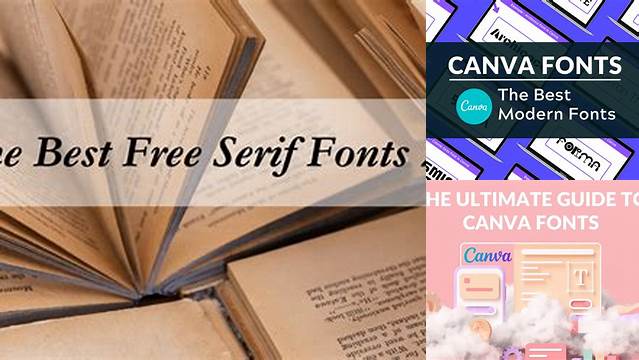
Free Fonts: How Thumbnails Help You Choose Wisely
Introduction to Free Fonts and Thumbnails
Hey guys! Let's dive into the world of free fonts and their amazing thumbnails. In today's digital landscape, fonts play a crucial role in visual communication. Whether you're designing a website, creating marketing materials, or working on a personal project, the right font can make all the difference. Free fonts offer an accessible way to enhance your designs without breaking the bank. But how do you choose the perfect font from the vast sea of options? That's where thumbnails come in handy. A font thumbnail is a small preview image that showcases the font's style and characteristics. It gives you a quick glimpse of what the font looks like, helping you decide whether it's the right fit for your project. Think of it as a mini-advertisement for the font, designed to catch your eye and pique your interest. A well-designed thumbnail will highlight the font's unique features, such as its weight, style, and overall aesthetic. This allows designers and creatives to efficiently browse and select fonts that align with their vision. Imagine scrolling through a list of hundreds of fonts without any thumbnails – it would be a daunting task! Thumbnails make the process much more manageable, enabling you to quickly identify fonts that resonate with your project's needs. Moreover, thumbnails often include sample text or glyphs that demonstrate the font's legibility and character set. This is particularly important for fonts that will be used in body text or headlines, where readability is paramount. By examining the thumbnail, you can assess whether the font is clear and easy to read, even at smaller sizes. In addition to their practical function, thumbnails also serve an aesthetic purpose. They contribute to the overall visual appeal of font libraries and marketplaces. A collection of well-designed thumbnails creates a cohesive and inviting browsing experience, encouraging users to explore different font options. So, whether you're a seasoned designer or just starting out, understanding the importance of free fonts and their thumbnails is crucial for creating visually stunning projects. Let's explore further how you can make the most of these resources.
Why Thumbnails are Essential for Font Selection
Thumbnails, guys, are super important when you're picking out fonts. They're not just there to look pretty; they're a vital tool in the font selection process. Think about it – you wouldn't buy a book without looking at the cover, right? Font thumbnails work in much the same way. They give you a sneak peek of what the font has to offer, allowing you to make informed decisions quickly and efficiently. The key benefit of using thumbnails is the ability to assess a font's style at a glance. Instead of having to download and test each font individually, you can scroll through a series of thumbnails and instantly identify fonts that match your aesthetic preferences. This is a huge time-saver, especially when you're working on a tight deadline. For example, if you're looking for a bold, modern font for a website header, you can easily spot thumbnails that feature thick strokes and clean lines. Conversely, if you need an elegant, script font for an invitation, you can focus on thumbnails with flowing curves and decorative flourishes. Thumbnails also help you understand the font's character set and legibility. A good thumbnail will showcase various letters and glyphs, giving you an idea of how the font looks in different contexts. You can check if the font includes special characters, ligatures, or alternative glyphs that might be useful for your project. Additionally, the thumbnail can demonstrate how well the font reads at different sizes. This is crucial for ensuring that your text remains legible, whether it's displayed on a large poster or a small mobile screen. Another reason why thumbnails are essential is that they provide context. Many font designers create families of fonts that include different weights, styles, and variations. The thumbnail can indicate whether the font is part of a larger family, allowing you to choose a consistent look and feel across your project. For instance, a thumbnail might show a font in regular, bold, and italic styles, giving you a comprehensive overview of the font's capabilities. Furthermore, thumbnails play a significant role in the overall user experience of font libraries and marketplaces. A well-organized and visually appealing collection of thumbnails makes it easier and more enjoyable to browse fonts. This encourages users to explore different options and discover new fonts that they might not have considered otherwise. In short, guys, thumbnails are the unsung heroes of font selection. They provide a quick, visual way to assess fonts, saving you time and helping you make better design choices. So, next time you're browsing for fonts, pay close attention to the thumbnails – they're your best friend in the font-finding process!
How to Create Effective Font Thumbnails
Creating effective font thumbnails is crucial for showcasing your fonts and attracting potential users. A well-designed thumbnail can make a font stand out from the crowd and entice designers to explore it further. So, how do you create thumbnails that truly capture the essence of your font? First and foremost, guys, focus on highlighting the font's unique characteristics. What makes your font special? Is it the elegant curves of a script font, the bold lines of a sans-serif, or the quirky details of a display font? Your thumbnail should immediately communicate these qualities. Use sample text that showcases the font's personality. Instead of simply displaying the alphabet, choose words or phrases that reflect the font's style. For example, if you're creating a thumbnail for a vintage-inspired font, you might use words like "classic," "retro," or "vintage" itself. This helps viewers understand the font's intended use and target audience. Pay attention to the composition of your thumbnail. The layout should be clean and balanced, with the font taking center stage. Avoid cluttering the thumbnail with too many elements or distracting backgrounds. A simple background, such as a solid color or a subtle texture, will help the font stand out. Consider using a contrasting color to make the text pop. Think about the size and resolution of your thumbnail. Most font marketplaces have specific requirements for thumbnail dimensions, so make sure to adhere to these guidelines. A thumbnail that's too small may appear blurry or pixelated, while one that's too large may take up too much space on the page. Aim for a resolution that's clear and crisp, even when viewed at smaller sizes. Experiment with different styles and layouts. There's no one-size-fits-all approach to creating font thumbnails. Some designers prefer to showcase the entire font family, while others focus on a single weight or style. You might also try incorporating visual elements that complement the font, such as icons, illustrations, or background patterns. The key is to find a style that represents your font accurately and appeals to your target audience. Another important aspect is consistency. If you're creating a series of thumbnails for multiple fonts, try to maintain a consistent look and feel across all of them. This will create a cohesive visual identity for your fonts and make them easier to recognize. Use the same color palette, layout, and style for each thumbnail to establish a strong brand presence. Finally, guys, test your thumbnails. Get feedback from other designers or potential users to see how they respond to your thumbnails. Do they find them visually appealing? Do they accurately represent the font's style and characteristics? Use this feedback to refine your thumbnails and make them even more effective. Creating compelling font thumbnails is an art form in itself. By focusing on the font's unique qualities, paying attention to composition and style, and maintaining consistency, you can create thumbnails that attract attention and drive sales.
Free Font Resources with High-Quality Thumbnails
Finding free fonts can be a treasure hunt, but finding free fonts with high-quality thumbnails? That's like hitting the jackpot, guys! High-quality thumbnails make the font-selection process a breeze, allowing you to quickly assess whether a font aligns with your design needs. Let's explore some fantastic resources where you can discover free fonts accompanied by top-notch thumbnails. One of the most popular destinations for free fonts is Google Fonts. Google Fonts offers a vast library of open-source fonts, all of which come with beautifully designed thumbnails. The thumbnails on Google Fonts are clear, concise, and showcase the font's key characteristics. You can easily browse fonts by category, style, or popularity, and the thumbnails provide a quick visual overview of each font's aesthetic. Another excellent resource is Font Squirrel. Font Squirrel is known for its curated collection of free fonts, all of which are commercially licensed and ready for use in your projects. The thumbnails on Font Squirrel are thoughtfully designed, often featuring sample text that highlights the font's personality and legibility. Font Squirrel also provides detailed information about each font's licensing terms, making it a reliable source for free fonts. DaFont is a long-standing favorite among designers, offering a massive collection of free fonts in various styles and categories. While the quality of fonts on DaFont can vary, many fonts come with well-designed thumbnails that accurately represent their style. It's worth browsing DaFont's extensive library to discover hidden gems, but always double-check the font's licensing terms before using it in a commercial project. Behance and Dribbble are not strictly font repositories, but they're excellent platforms for discovering free fonts shared by talented designers. Many designers showcase their font creations on these platforms, often including high-quality thumbnails and mockups that demonstrate the font's versatility. Keep an eye out for free font giveaways and promotional offers on Behance and Dribbble. Creative Market is a marketplace for design assets, including fonts. While Creative Market primarily features premium fonts, they often offer free goods, including fonts, on a weekly basis. These free fonts typically come with professional-quality thumbnails and detailed product descriptions. Make sure to subscribe to Creative Market's newsletter to stay informed about their free goods offerings. When browsing free font resources, it's essential to consider the licensing terms of each font. Not all free fonts are created equal, and some may have restrictions on commercial use. Always read the license agreement carefully to ensure that you're using the font in accordance with its terms. In conclusion, guys, finding free fonts with high-quality thumbnails is easier than ever, thanks to the wealth of resources available online. Google Fonts, Font Squirrel, DaFont, Behance, Dribbble, and Creative Market are just a few of the platforms where you can discover stunning fonts for your projects. By paying attention to thumbnails and licensing terms, you can build a valuable collection of free fonts that enhance your designs and save you money.
Optimizing Your Workflow with Font Thumbnails
Okay, guys, let's talk about optimizing your workflow using font thumbnails. We've established how important thumbnails are for selecting fonts, but they can also play a crucial role in streamlining your design process. By incorporating thumbnails into your workflow, you can save time, improve organization, and make better design decisions. One of the most effective ways to optimize your workflow is to create a personal font library with custom thumbnails. Instead of relying solely on the default thumbnails provided by font marketplaces, consider creating your own thumbnails that showcase your favorite fonts in a way that resonates with your style. This can involve using specific sample text, color palettes, or visual elements that reflect your brand or design preferences. When you have a personalized font library, it becomes much easier to find the perfect font for a project. You can quickly browse your thumbnails and identify fonts that align with your design vision, without having to sift through hundreds of generic previews. This not only saves time but also helps you maintain consistency across your projects. Another way to optimize your workflow is to organize your fonts by style and category. Create folders or tags for different font types, such as serif, sans-serif, script, and display fonts. Within each category, you can further organize fonts by style, such as modern, vintage, or handwritten. This makes it easy to locate fonts that match your specific needs. When you add a new font to your library, create a thumbnail that reflects its style and category. This will help you quickly identify the font in the future. You can also use thumbnails to differentiate between fonts that have similar names or appearances. Add a unique visual element or label to each thumbnail to make it stand out. Font management tools often allow you to add custom thumbnails and tags to your fonts. Explore these features to enhance your organization and workflow. Another tip for optimizing your workflow is to use font thumbnails in your design mockups. When presenting design concepts to clients or colleagues, include font thumbnails in your mockups to illustrate the font's appearance and character. This helps them visualize how the font will look in the final design and makes it easier for them to provide feedback. You can also use font thumbnails to experiment with different font combinations. Create mockups that showcase various font pairings and assess how well they work together. This can help you develop a cohesive visual style for your projects. In addition, guys, regularly review your font library and update your thumbnails as needed. Fonts that you no longer use can be archived or removed, while new fonts can be added with appropriate thumbnails. This ensures that your font library remains relevant and efficient. Optimizing your workflow with font thumbnails is a simple but powerful way to enhance your design process. By creating a personalized font library, organizing your fonts by style, and using thumbnails in your mockups, you can save time, improve organization, and make better design decisions. So, embrace the power of thumbnails and take your font management to the next level!
Conclusion: The Power of Free Fonts and Thumbnails
So, guys, we've journeyed through the exciting world of free fonts and their thumbnails, and it's clear that both are incredibly powerful tools for designers and creatives. Free fonts provide an accessible way to enhance your projects without incurring costs, while thumbnails act as the visual gateway, making the selection process efficient and enjoyable. Thumbnails are not just about aesthetics; they are about functionality and communication. A well-crafted thumbnail conveys the essence of a font at a glance, allowing you to quickly assess its style, legibility, and suitability for your project. They save you time and effort by eliminating the need to download and test each font individually. High-quality thumbnails also contribute to the overall user experience of font libraries and marketplaces. They create a visually appealing browsing experience, encouraging exploration and discovery. Whether you're a seasoned designer or just starting out, paying attention to thumbnails is a smart move. Creating effective font thumbnails is an art in itself. By highlighting a font's unique characteristics, using clear and concise sample text, and maintaining a consistent style, you can create thumbnails that attract attention and drive downloads. A compelling thumbnail can make all the difference in a crowded marketplace. We've also explored various resources for finding free fonts with high-quality thumbnails, such as Google Fonts, Font Squirrel, DaFont, Behance, Dribbble, and Creative Market. These platforms offer a wealth of options, catering to diverse design needs and preferences. Remember to always check the licensing terms before using a free font in a commercial project. Optimizing your workflow with font thumbnails is a game-changer. Creating a personalized font library with custom thumbnails, organizing fonts by style and category, and using thumbnails in design mockups are all effective strategies for streamlining your design process. Font thumbnails are a small detail, but they have a big impact on your efficiency and creativity. In conclusion, guys, free fonts and thumbnails are a dynamic duo that empowers designers to create stunning visuals. Embrace the power of these resources, and you'll unlock new possibilities for your projects. Happy designing!